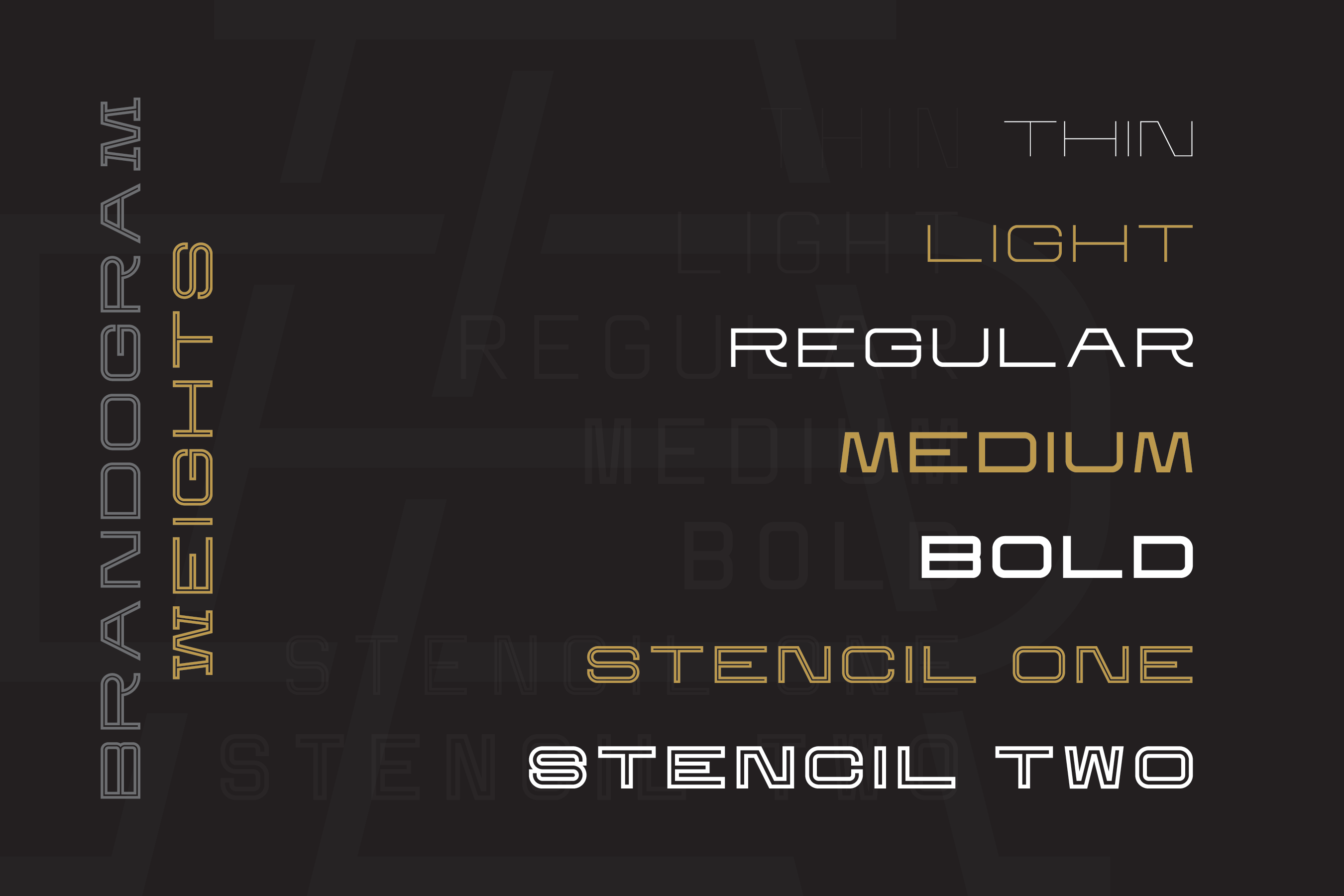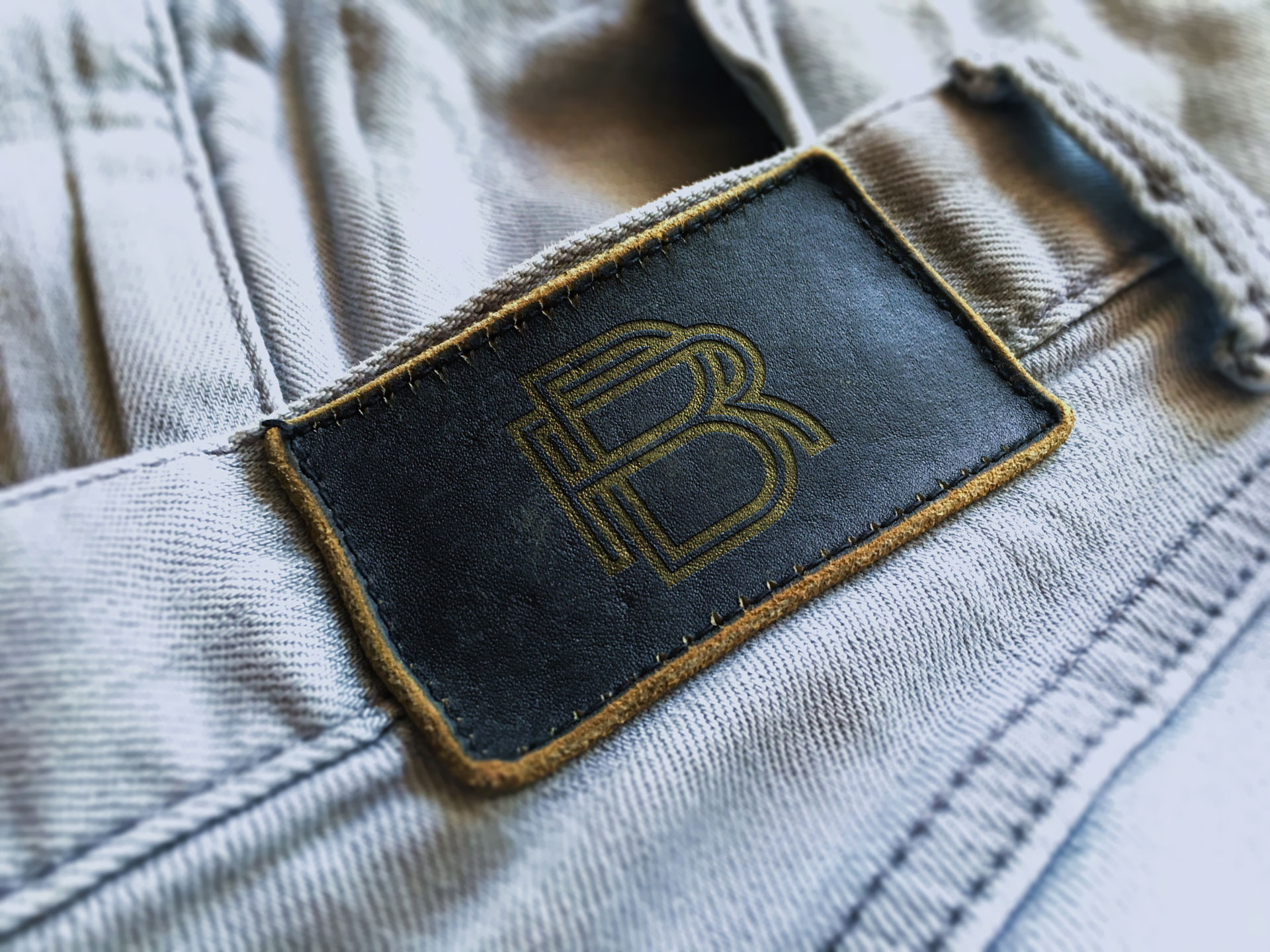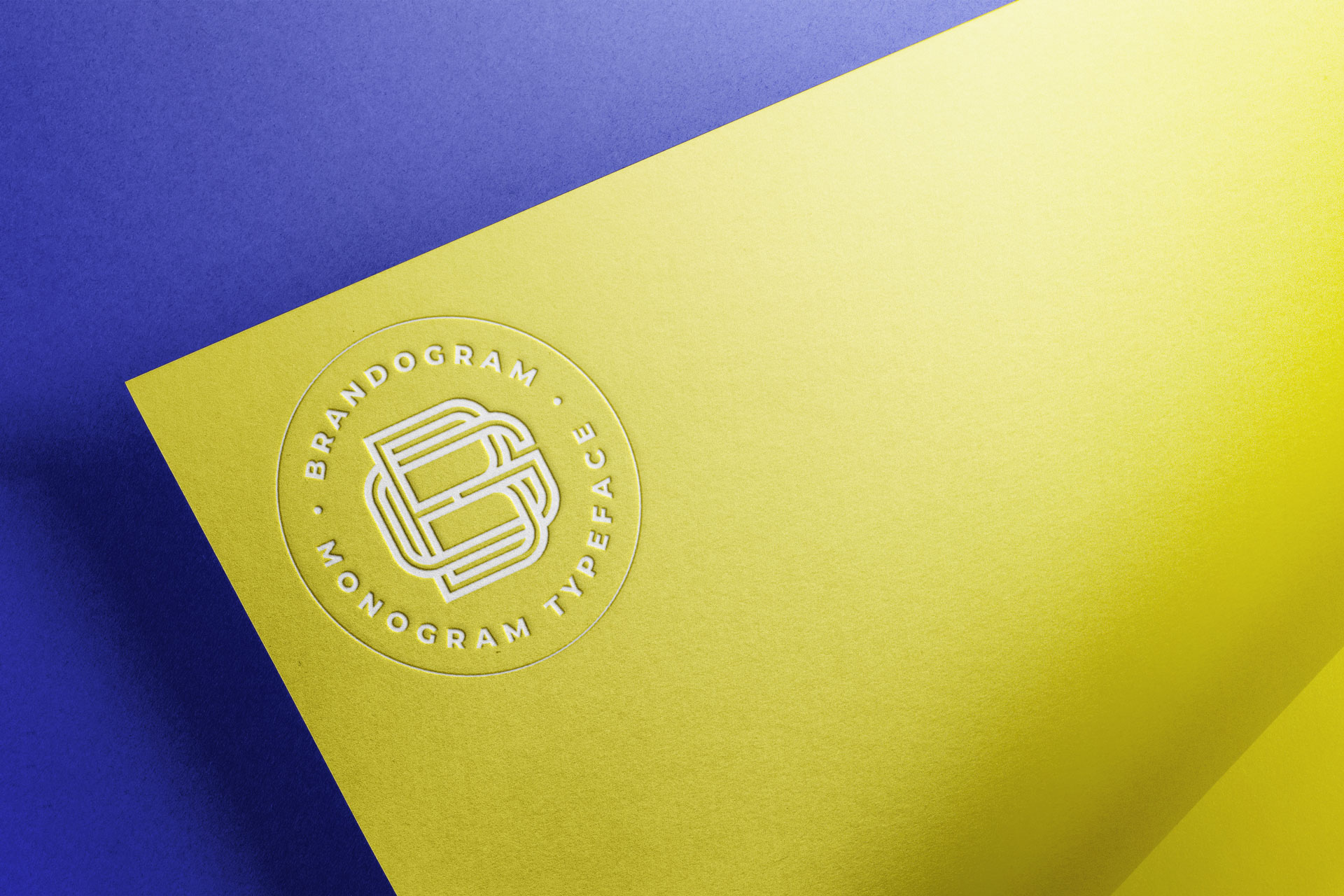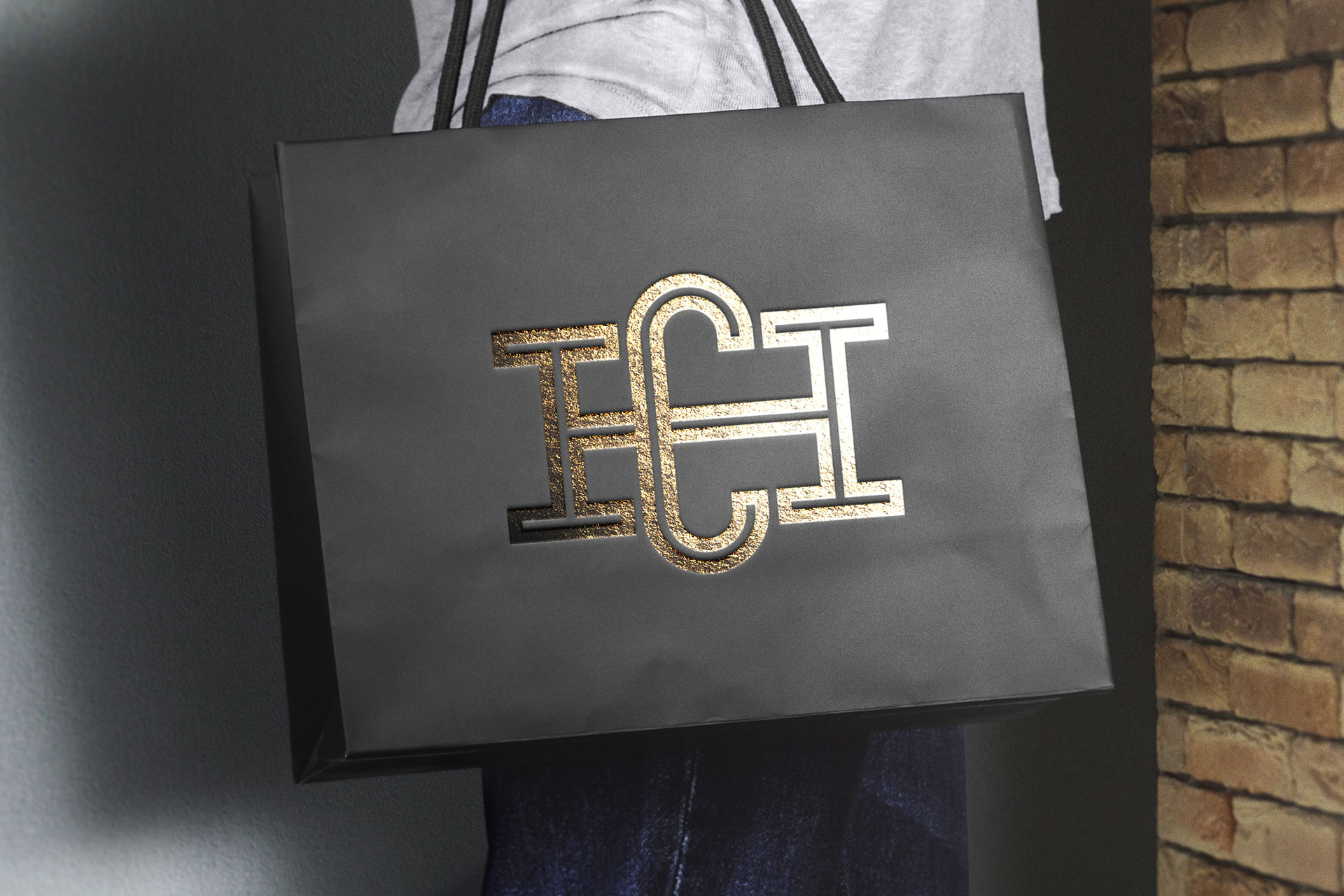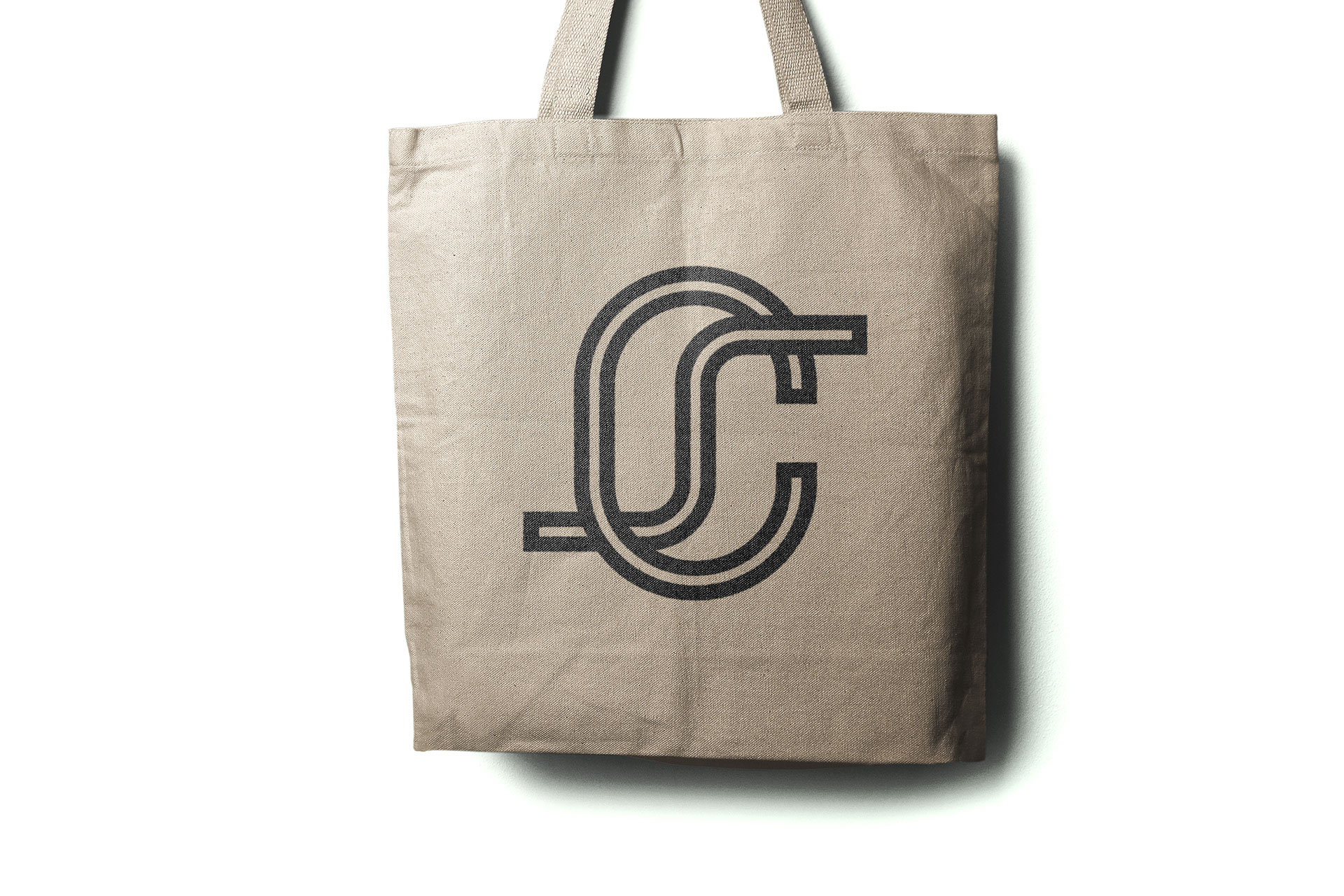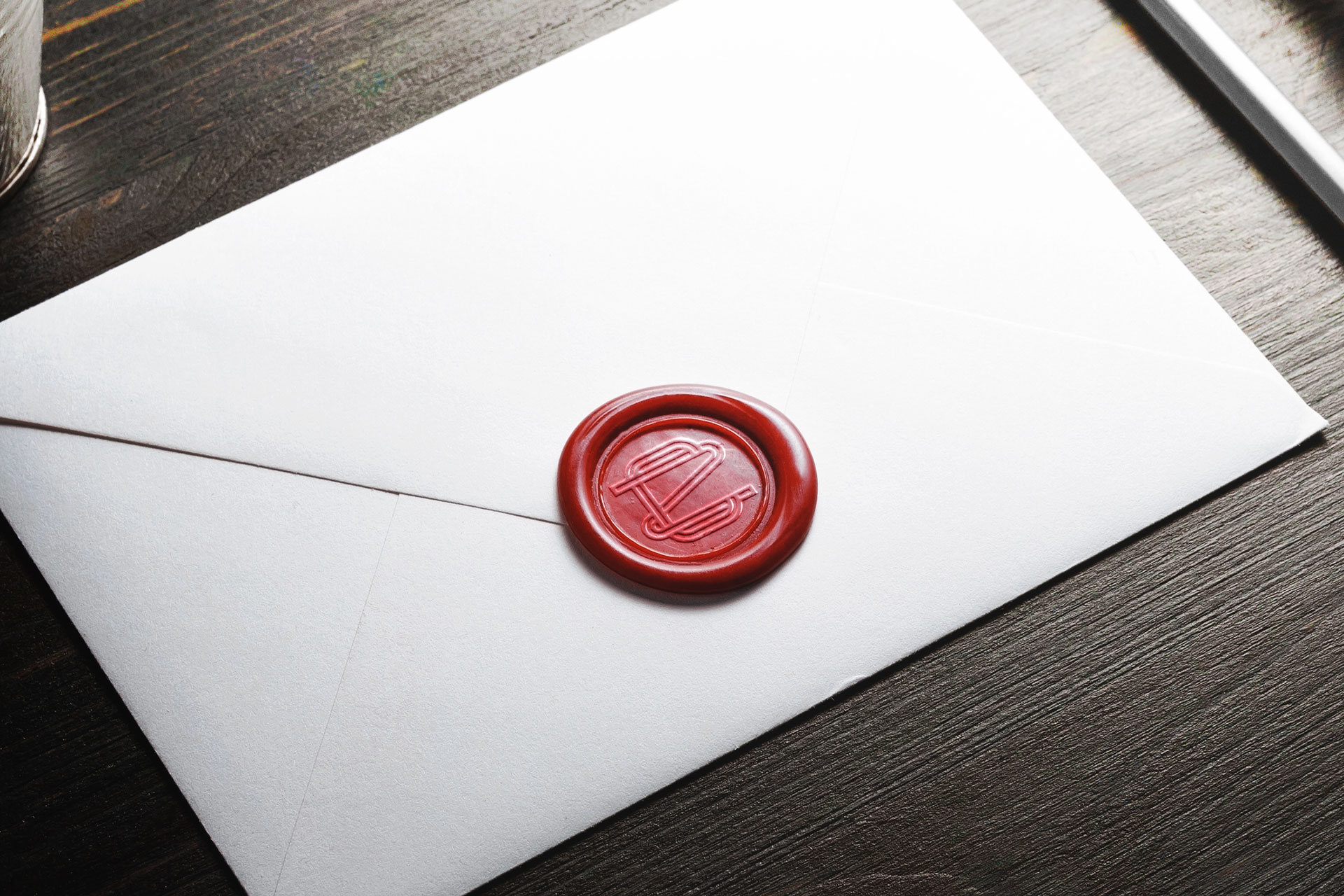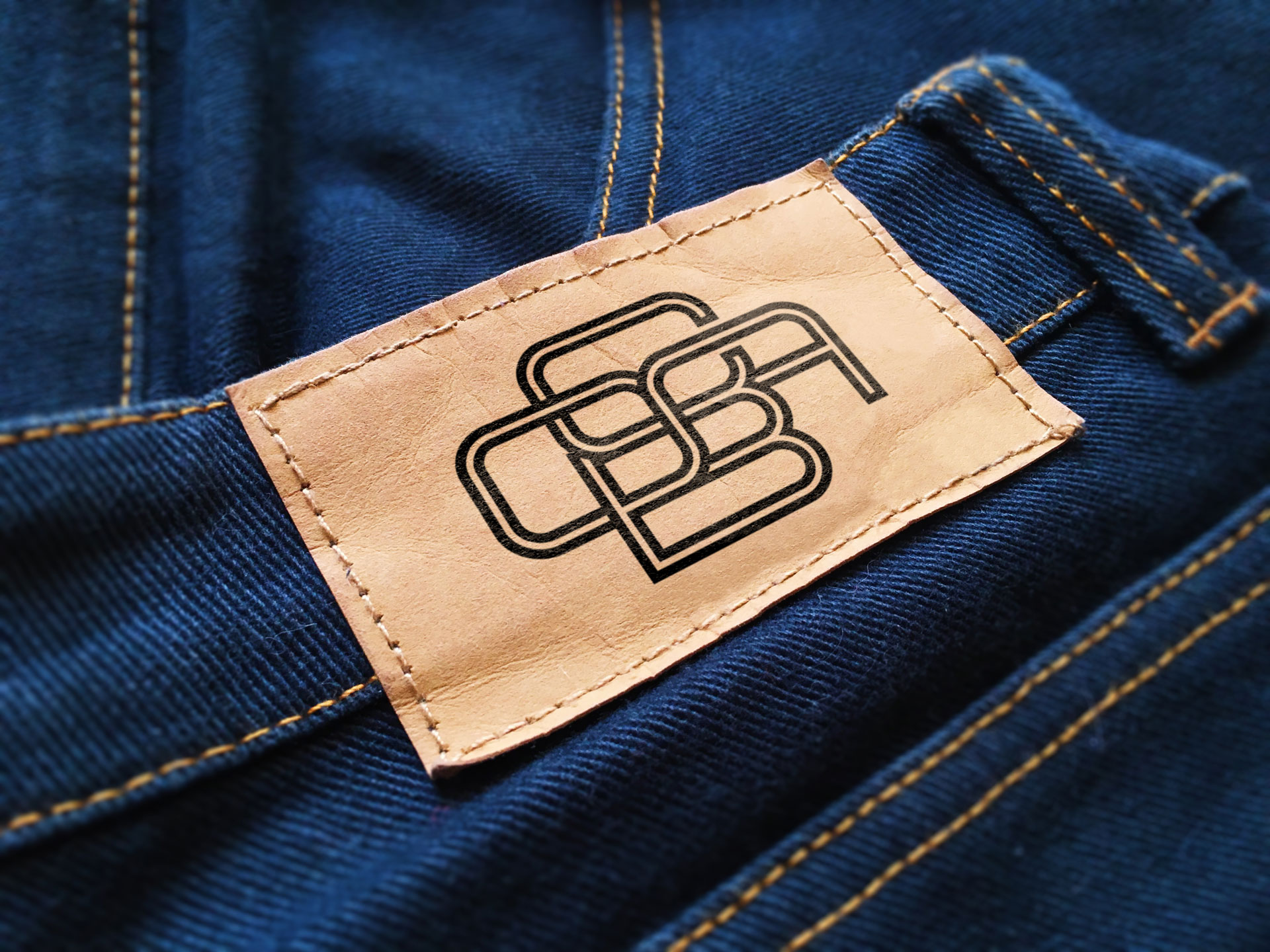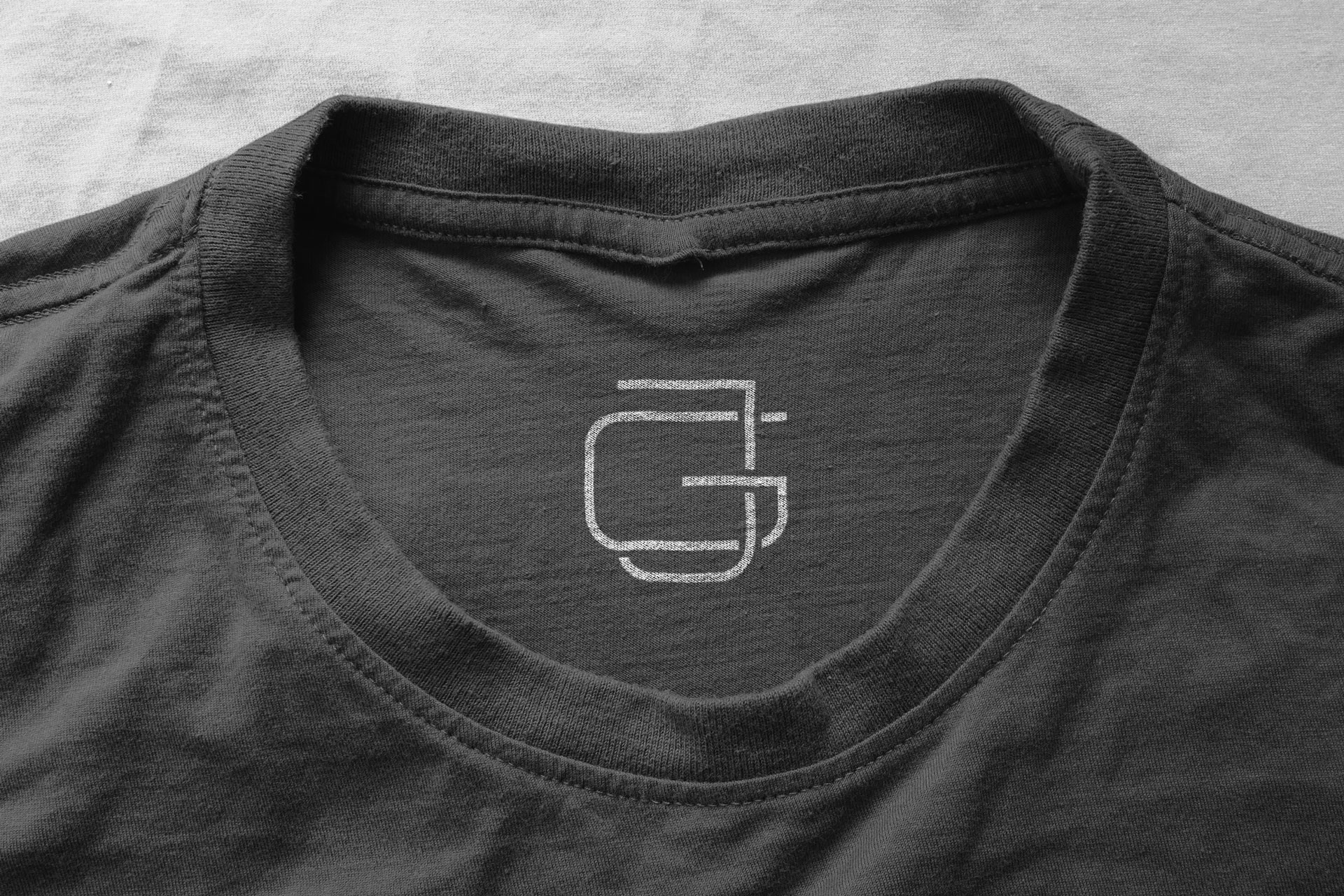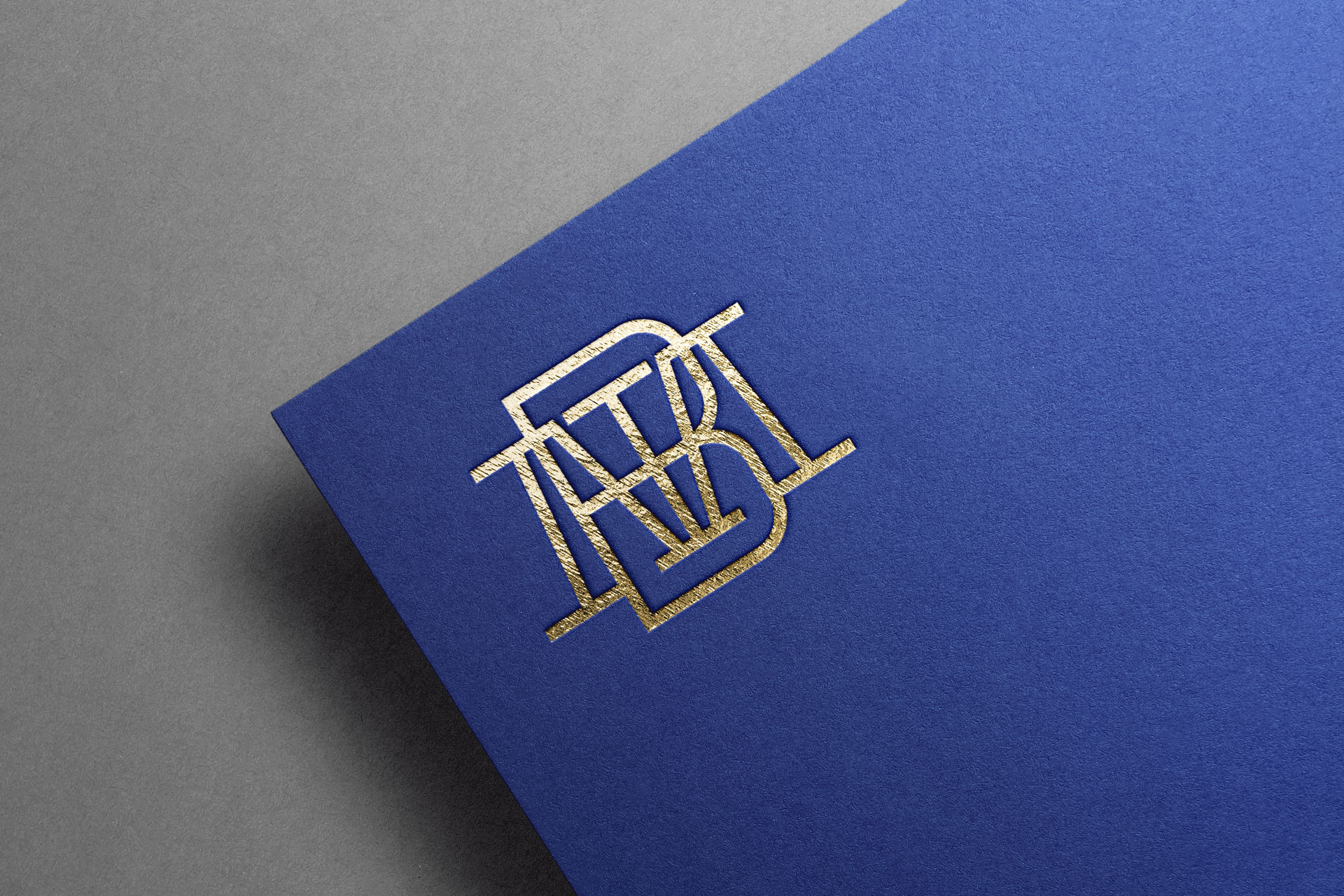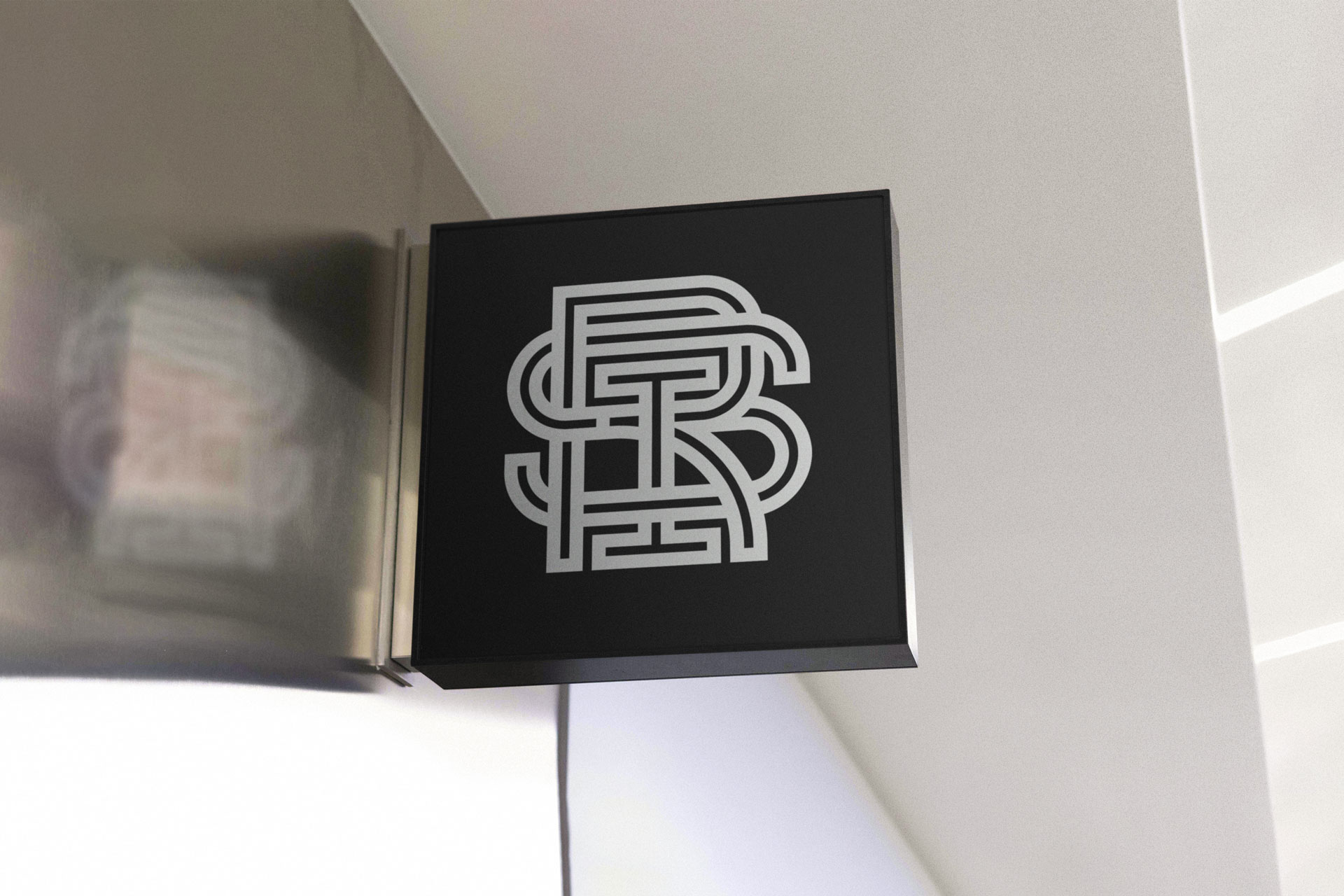
Go from initials to finished monogram in under a minute. Brandogram is a 7-weight typeface built to combine letters – for logo designers, wedding stationers, Etsy sellers, and crafters.
Brandogram was built to solve one specific problem: combining two or three letters into a single, cohesive monogram without hours of manual kerning and alignment work. The uppercase letters and small caps are constructed so they naturally centre-align when placed together – the hard part is done before you start.
Seven weights cover every scenario. The solid weights – from Thin through Bold – control how much white space sits between the combined letters. The thinner the weight, the more open and elegant the result. The heavier, the more structured and bold. The Stencil weights do something different: they remove the overlapping shapes between letters, creating passages and interlocking connections that make the letters appear woven together rather than just adjacent.
Each letter comes with up to 24 design alternates – sans-serif and slab-serif styles, in condensed, regular, and wide widths. That’s enough variation to make each monogram genuinely yours, not just initials set in the same typeface as everyone else’s.
Lowercase (small caps, for monogram stacking): a b c d e f g h i j k l m n o p q r s t u v w x y z